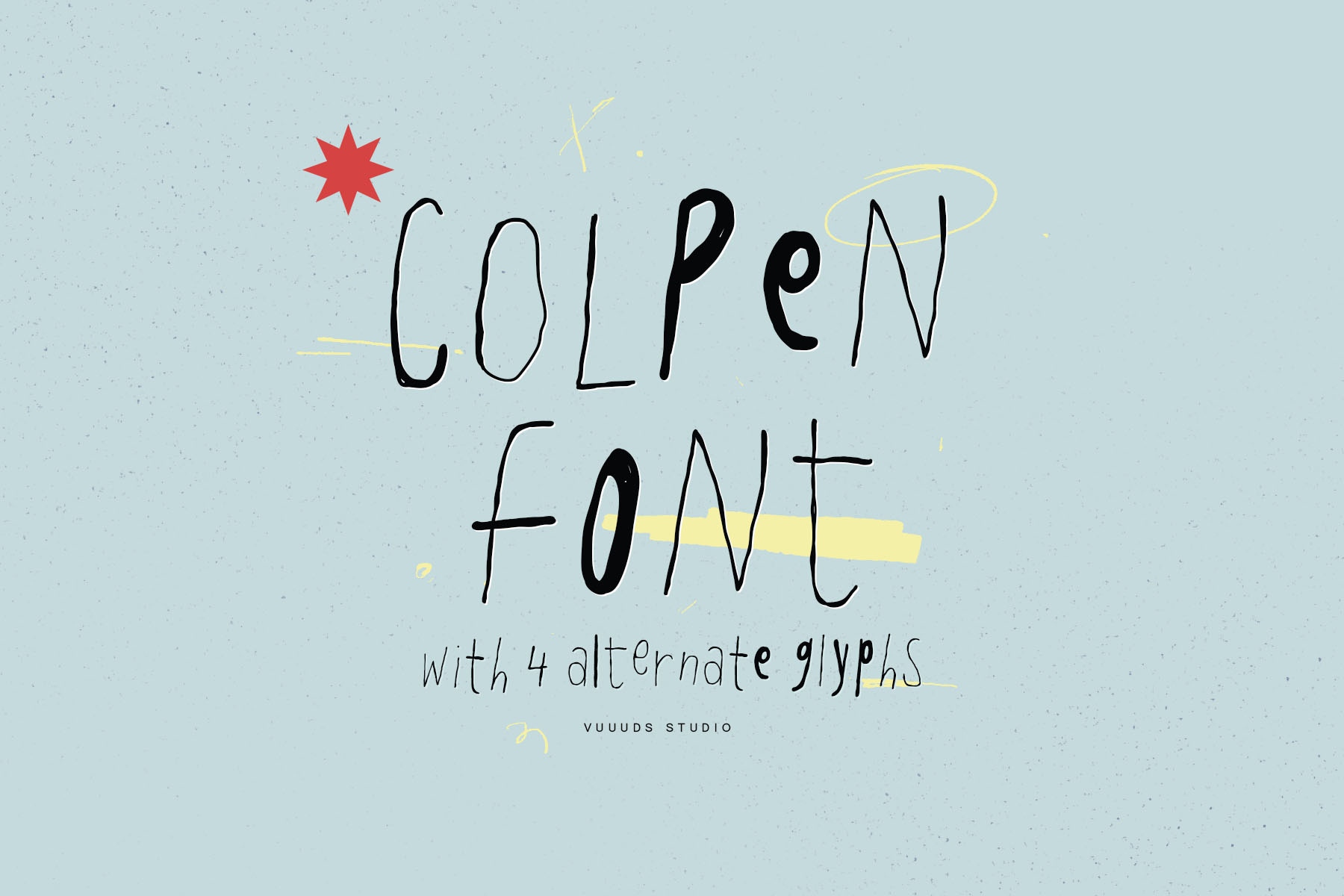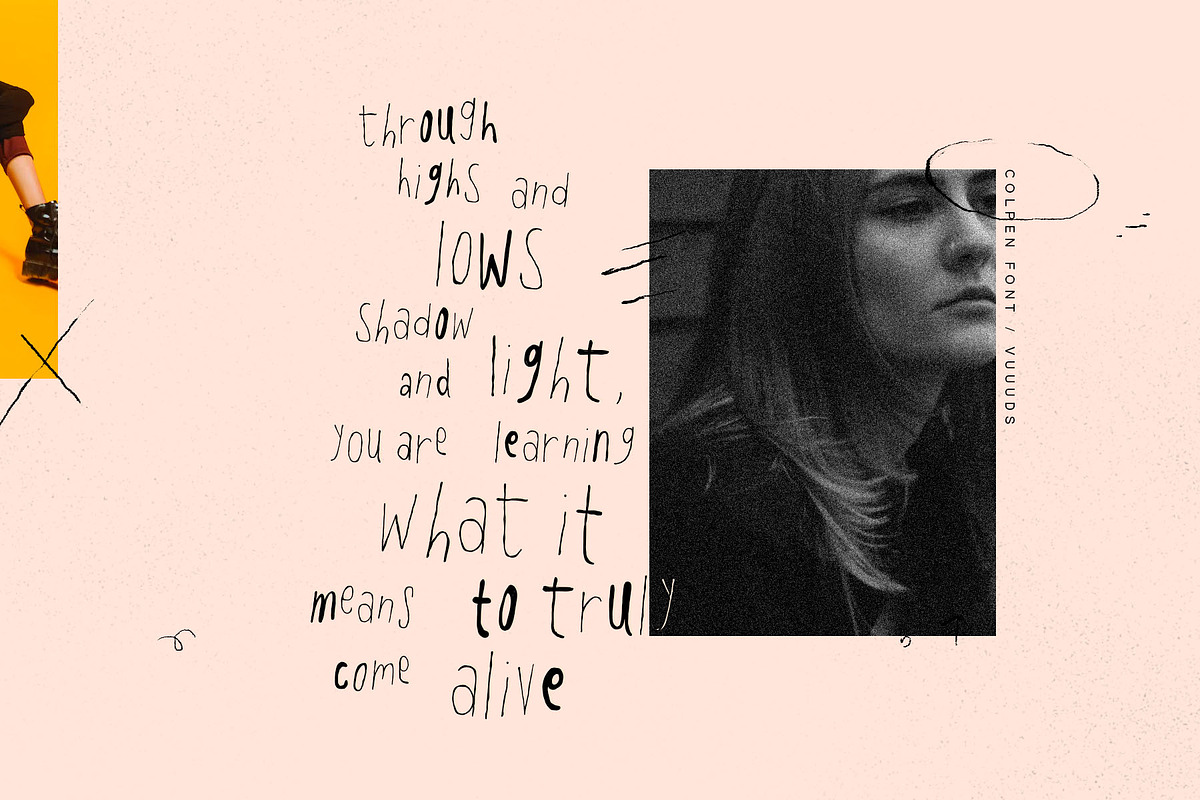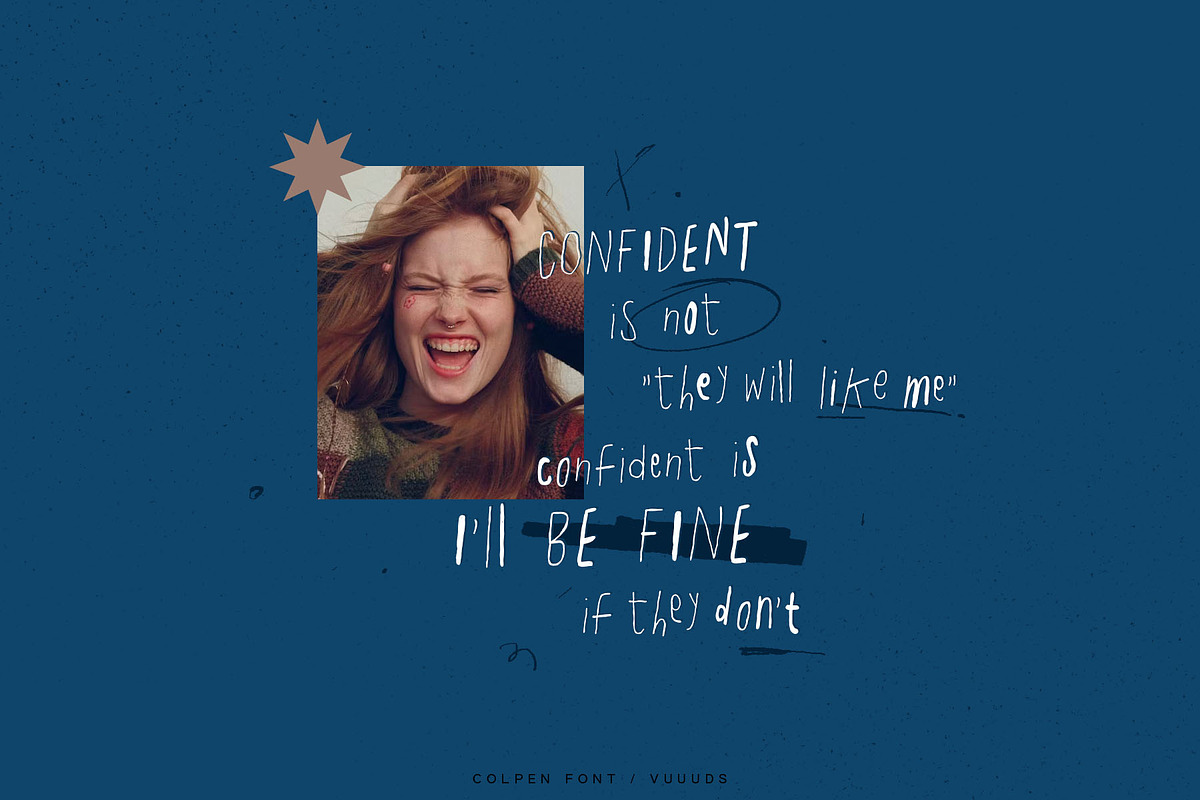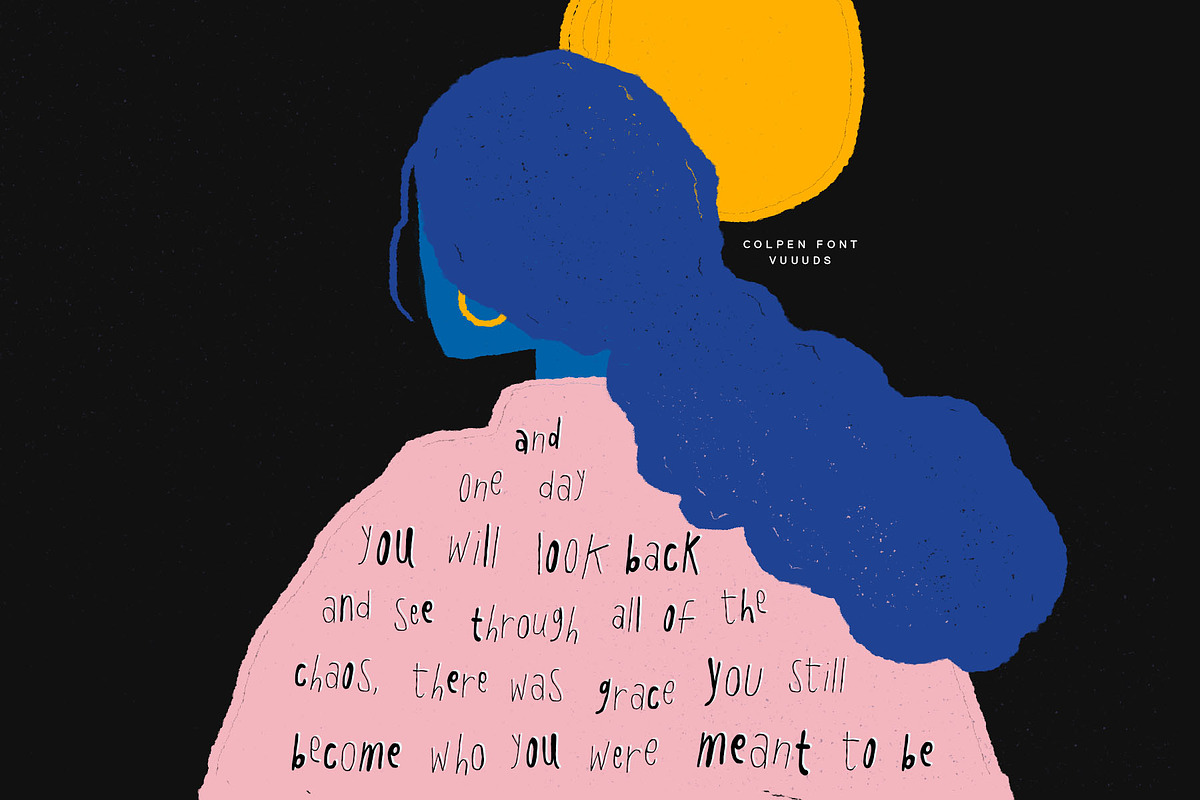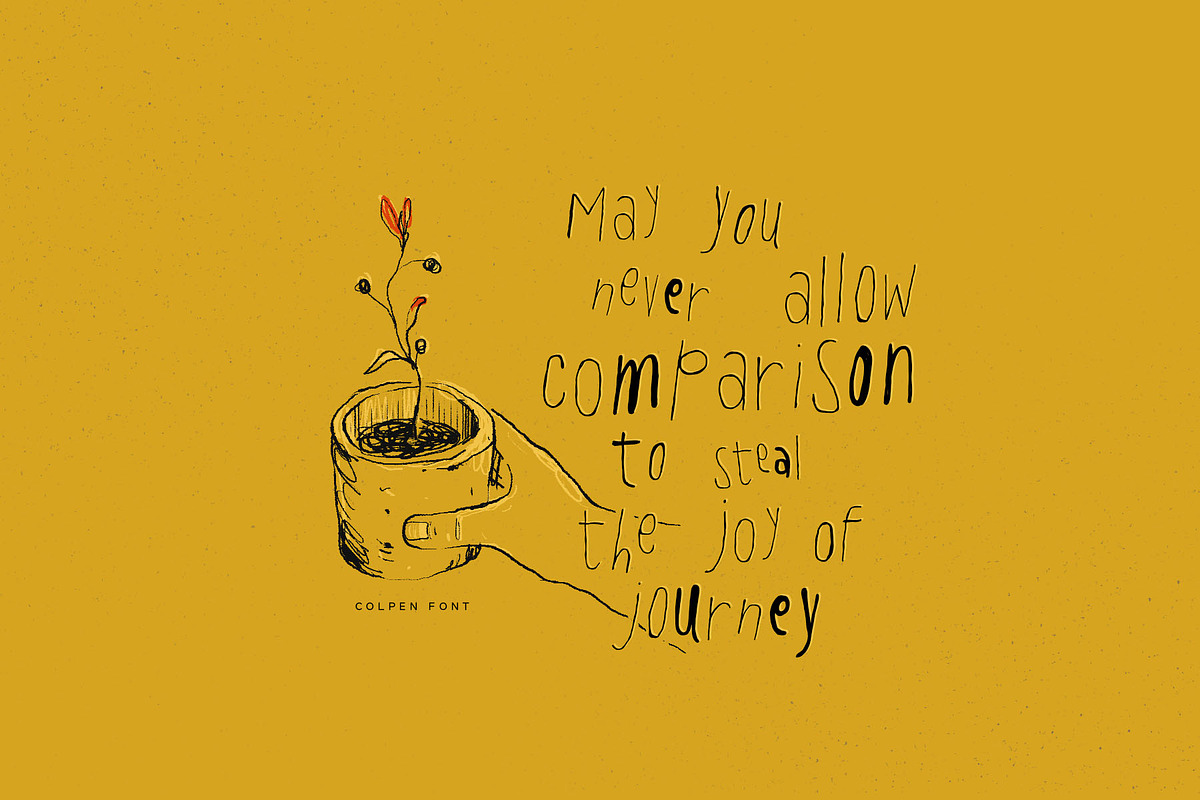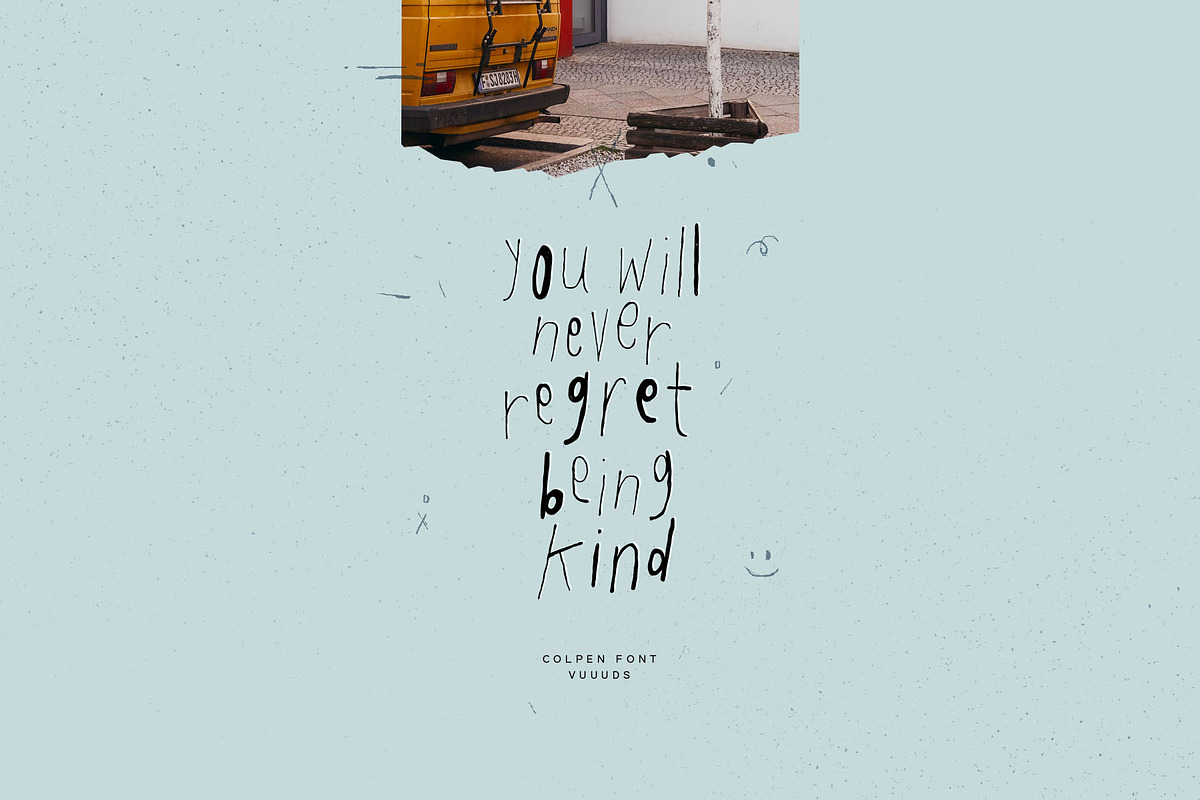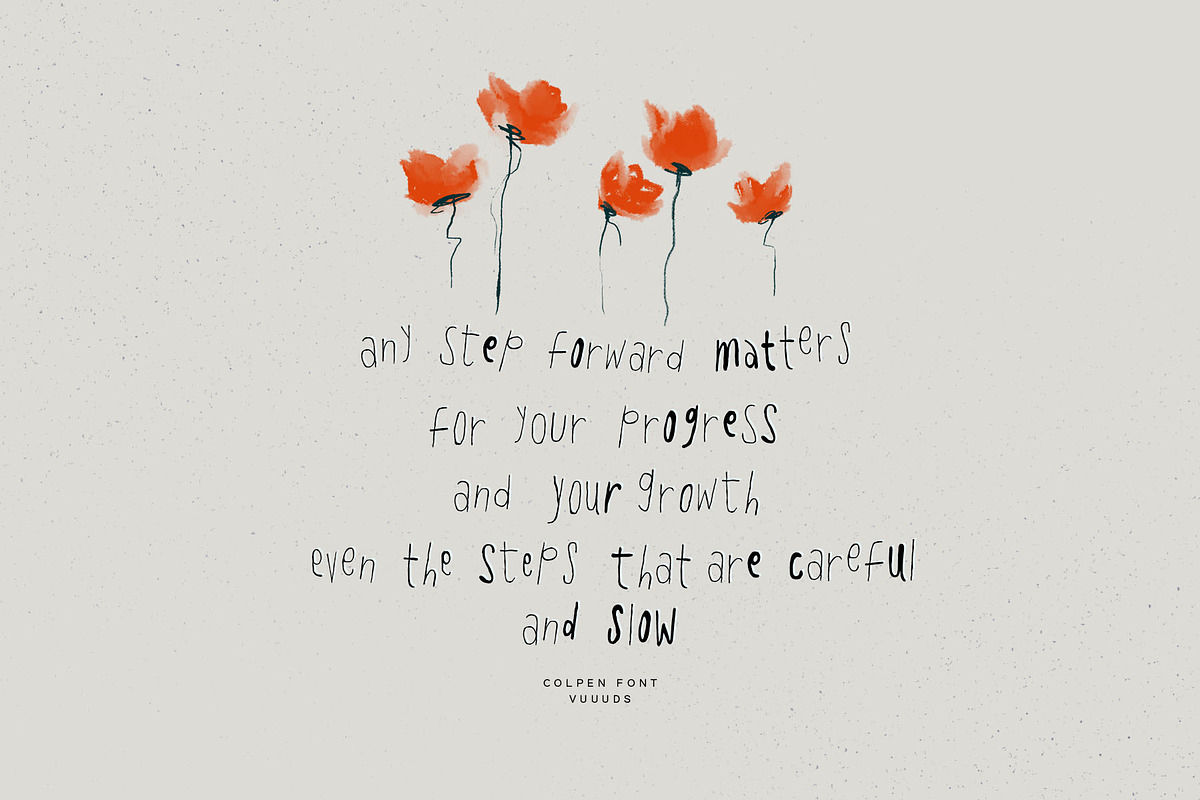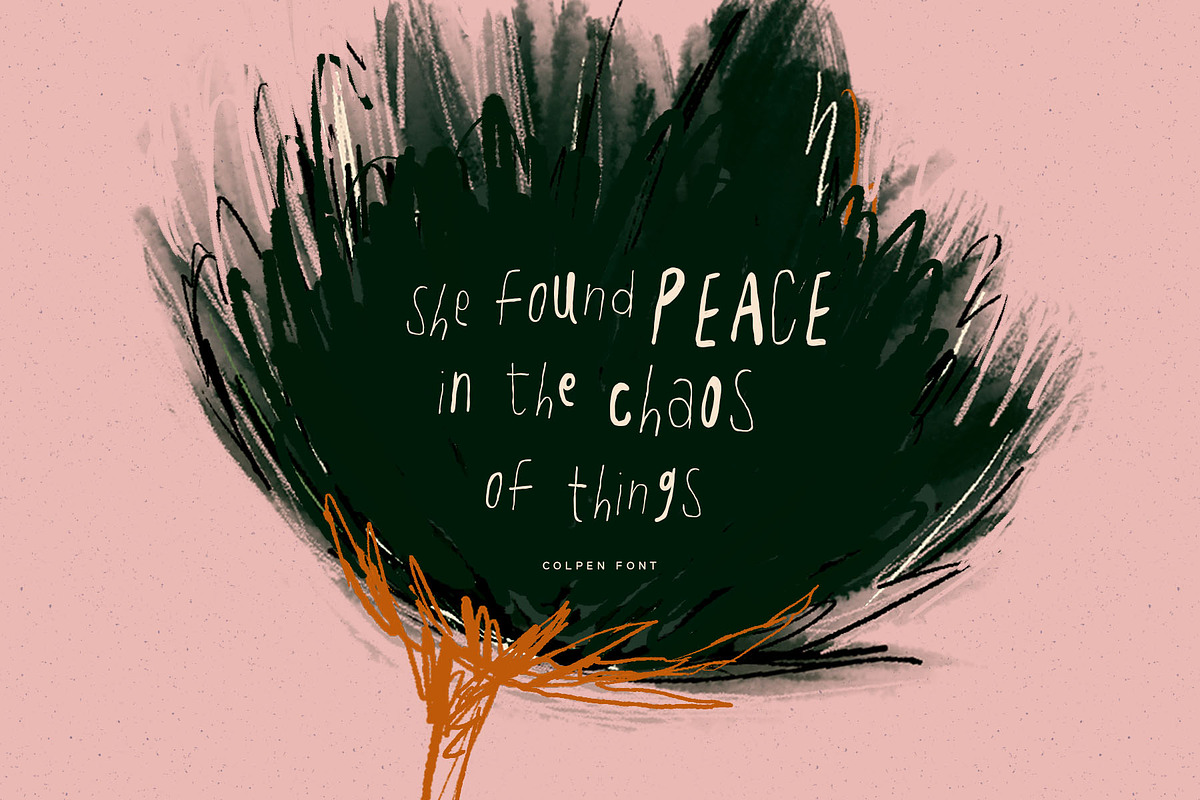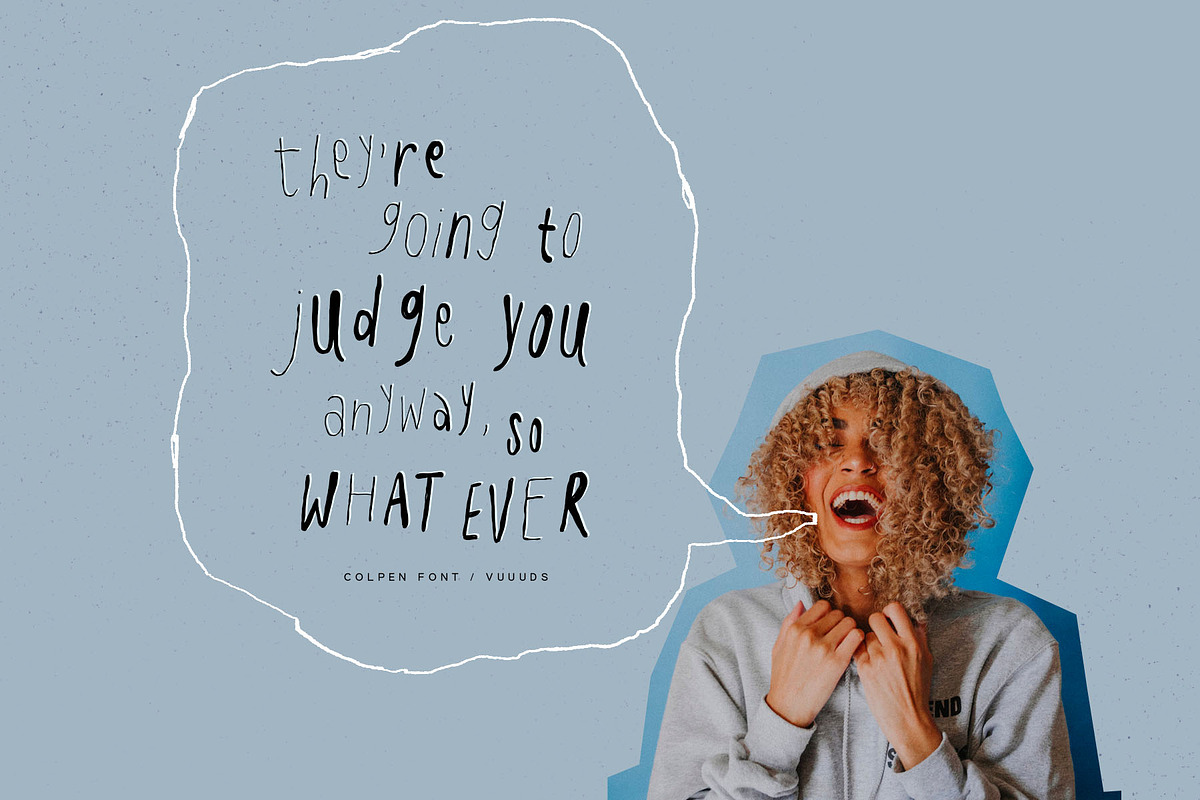
Colpen Font
Introducing Colpen Font!
Colpen is casual pen font, every single letters have been uniquely crafted.
Foreign languages support: ÀÁÂÃÄÅÆÇÈÉÊËÌÍÎÏÐÑÒÓÔÕÖØÙÚÛÜÝàáâãäåæçèéêëìíîïðñòóôõöøùúûüýÿ